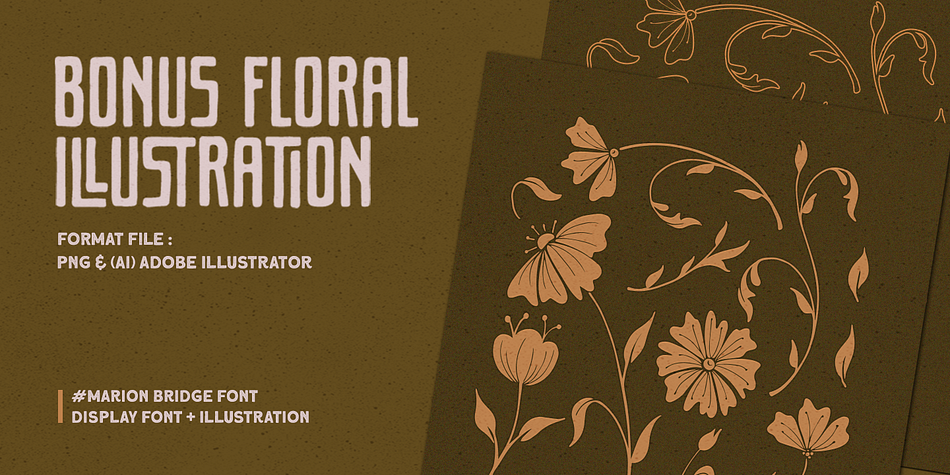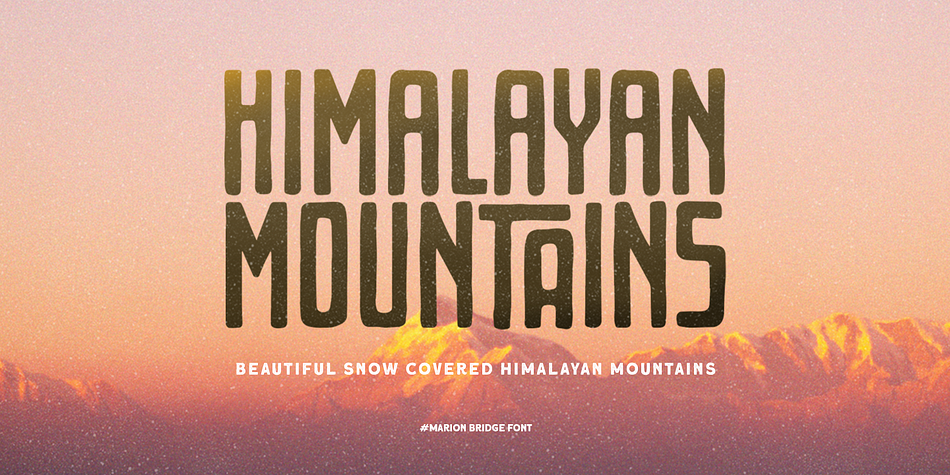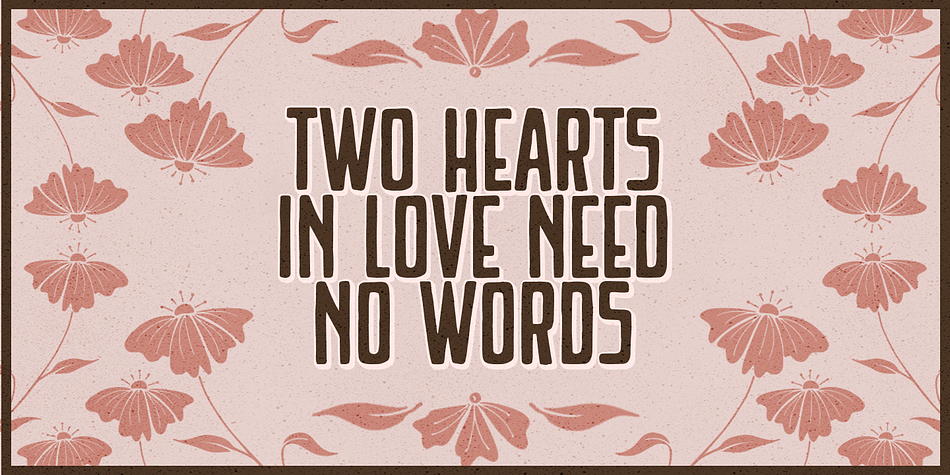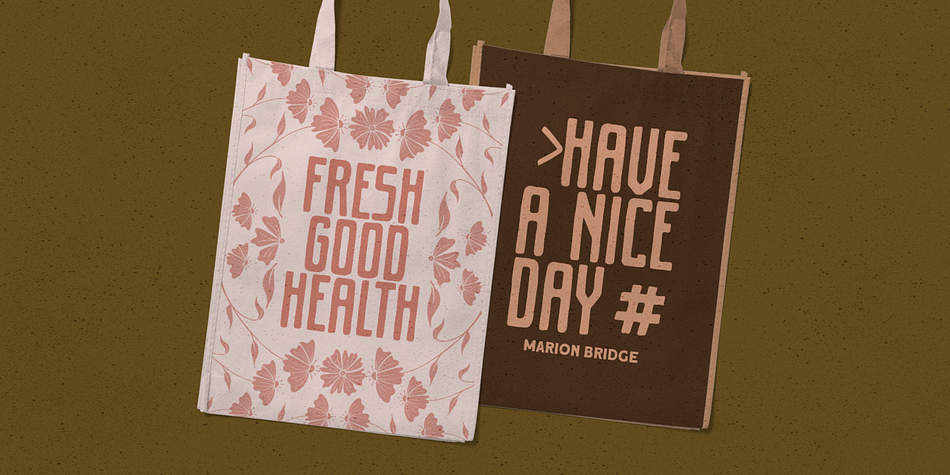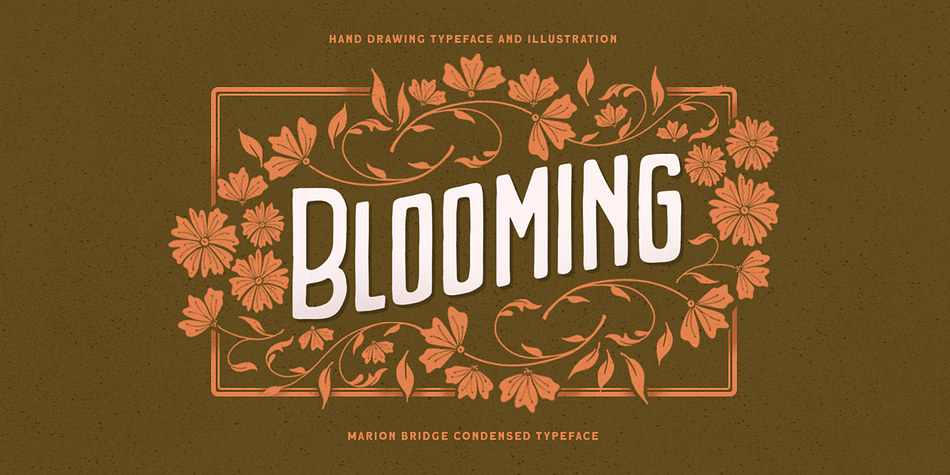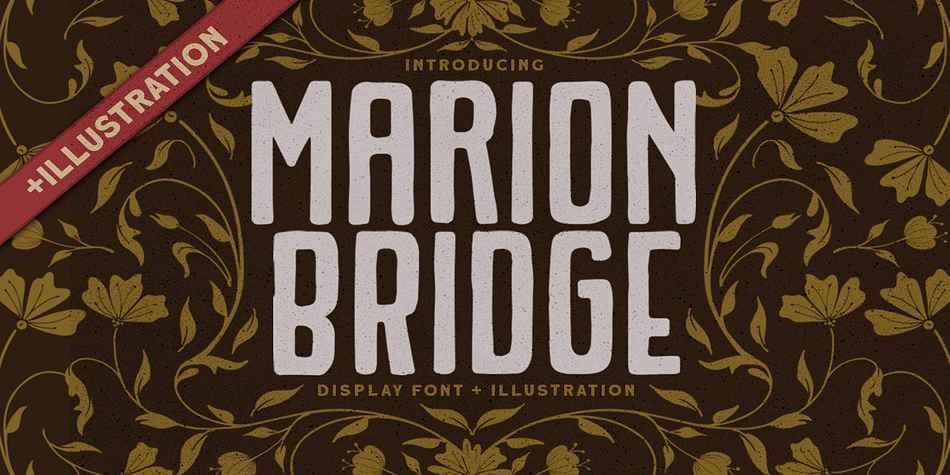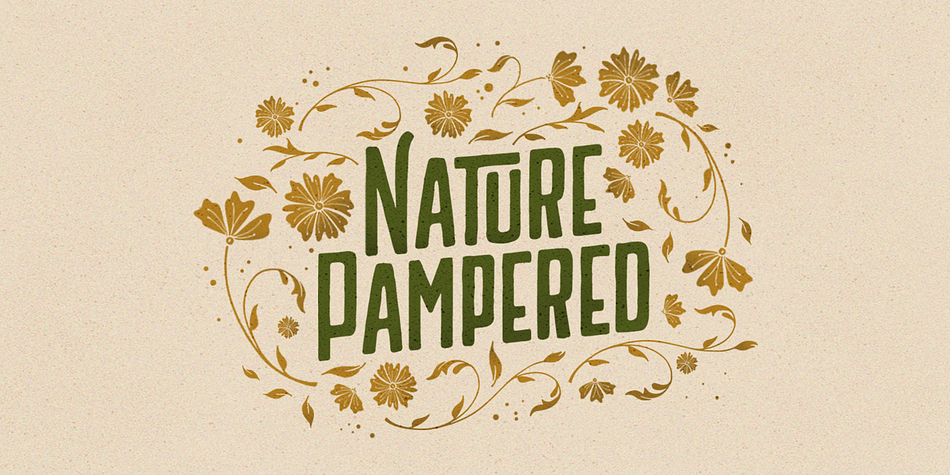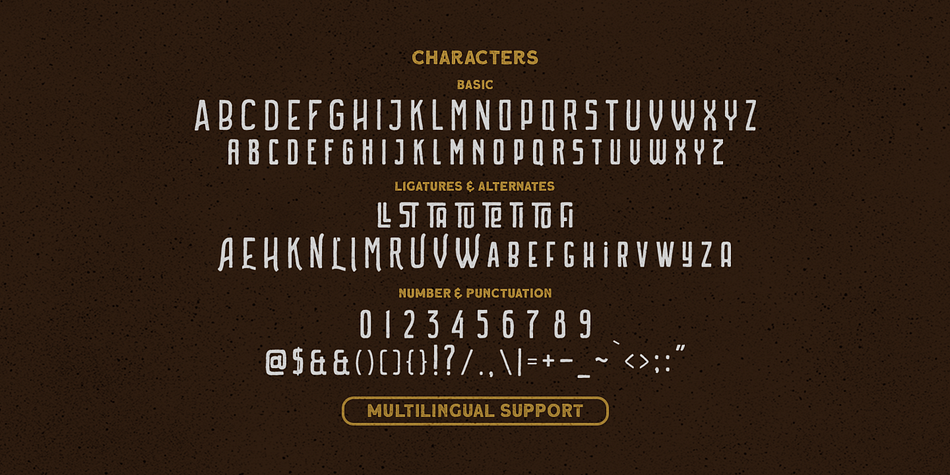
Marion Bridge
Designed by Hendry Juanda, Marion Bridge is a display sans font family published by Letterhend Studio.
Marion Bridge is a vintage display typeface with the touch of nostalgic feel. The strong and bold looks make this font standout to be used as a title or a logo. It comes with many illustrations as bonus! This font perfectly made to be applied especially in logo, and the other various formal forms such as invitations, labels, magazines, books, greeting / wedding cards, packaging, fashion, make up, stationery, novels, labels or any type of advertising purpose.